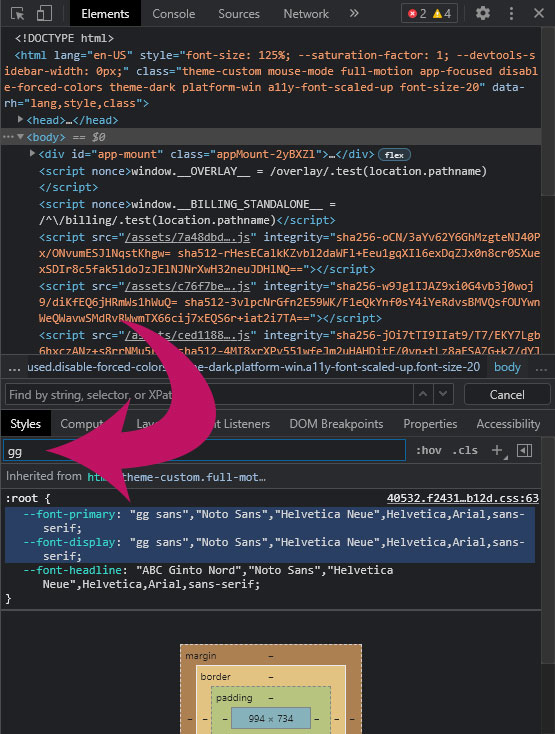
Revert Discord Font. Change font scaling on discord. One way to change how the gg sans font appears in discord is by changing the app's font scaling.
One way to change how the gg sans font appears in discord is by changing the app's font scaling. If you're not happy with the recent change to discord's font, we've got a guide that will show you how to revert it back! Web reports suggest that several users find the new font style extremely ‘ugly’ and are calling in for an option to revert it. Change font scaling on discord. Web how to change discord font back to old font m’et 1.03k subscribers subscribe 152 15k views 2 years ago discord changed their font, this video shows you how to change it back. You can scale the font up or down in both your desktop and. Some are even saying that symbols like ‘ツ’ and ‘ノ’ make it really hard to read some.
One way to change how the gg sans font appears in discord is by changing the app's font scaling. One way to change how the gg sans font appears in discord is by changing the app's font scaling. Some are even saying that symbols like ‘ツ’ and ‘ノ’ make it really hard to read some. If you're not happy with the recent change to discord's font, we've got a guide that will show you how to revert it back! Web how to change discord font back to old font m’et 1.03k subscribers subscribe 152 15k views 2 years ago discord changed their font, this video shows you how to change it back. You can scale the font up or down in both your desktop and. Change font scaling on discord. Web reports suggest that several users find the new font style extremely ‘ugly’ and are calling in for an option to revert it.